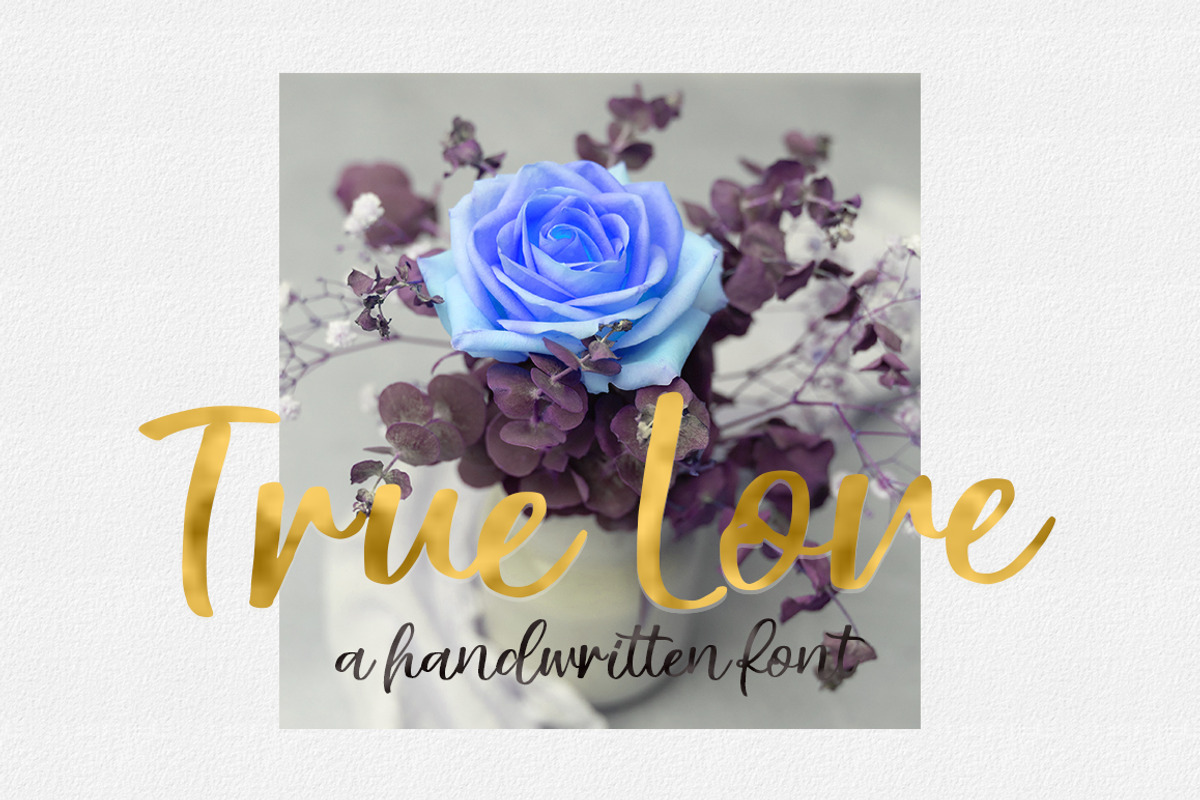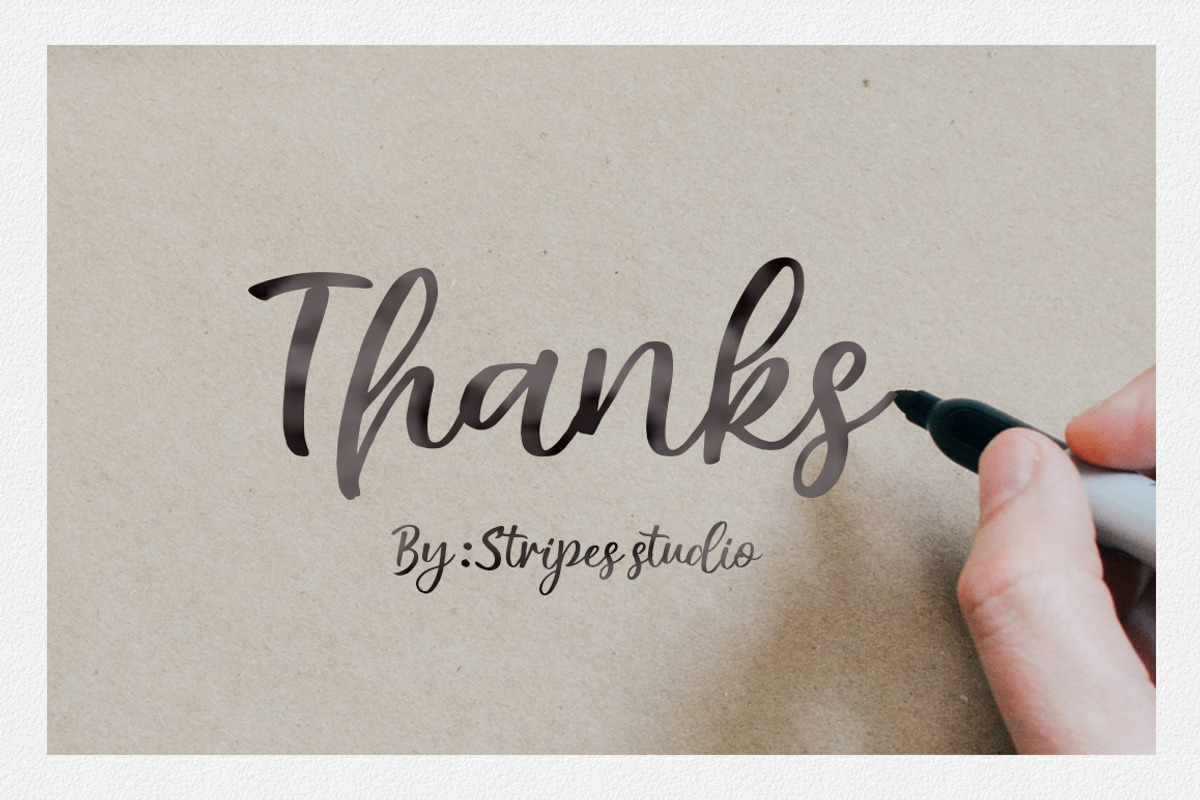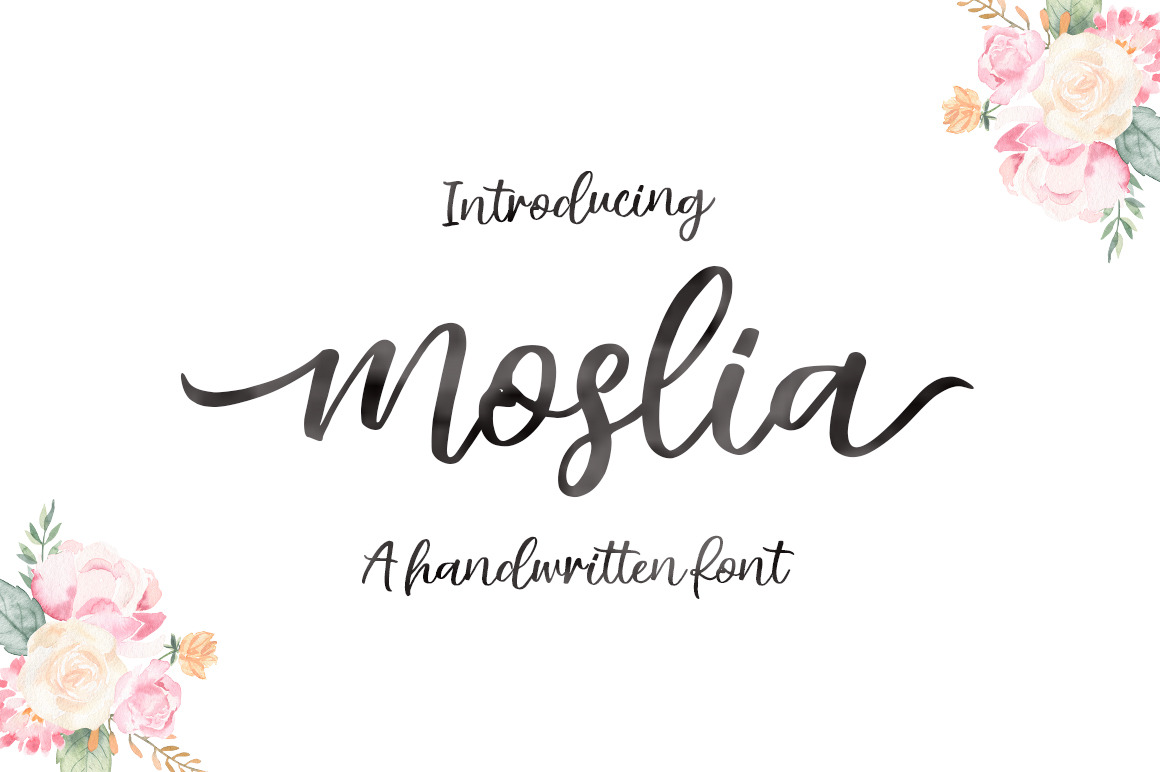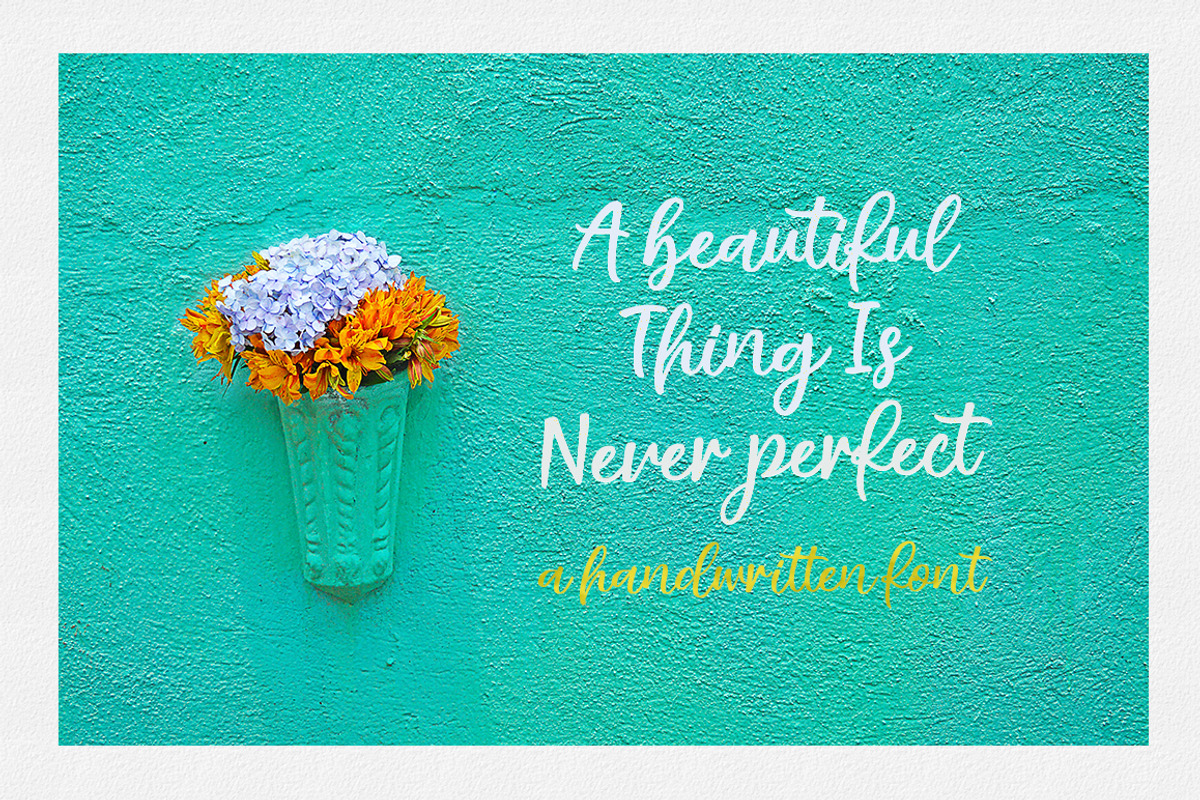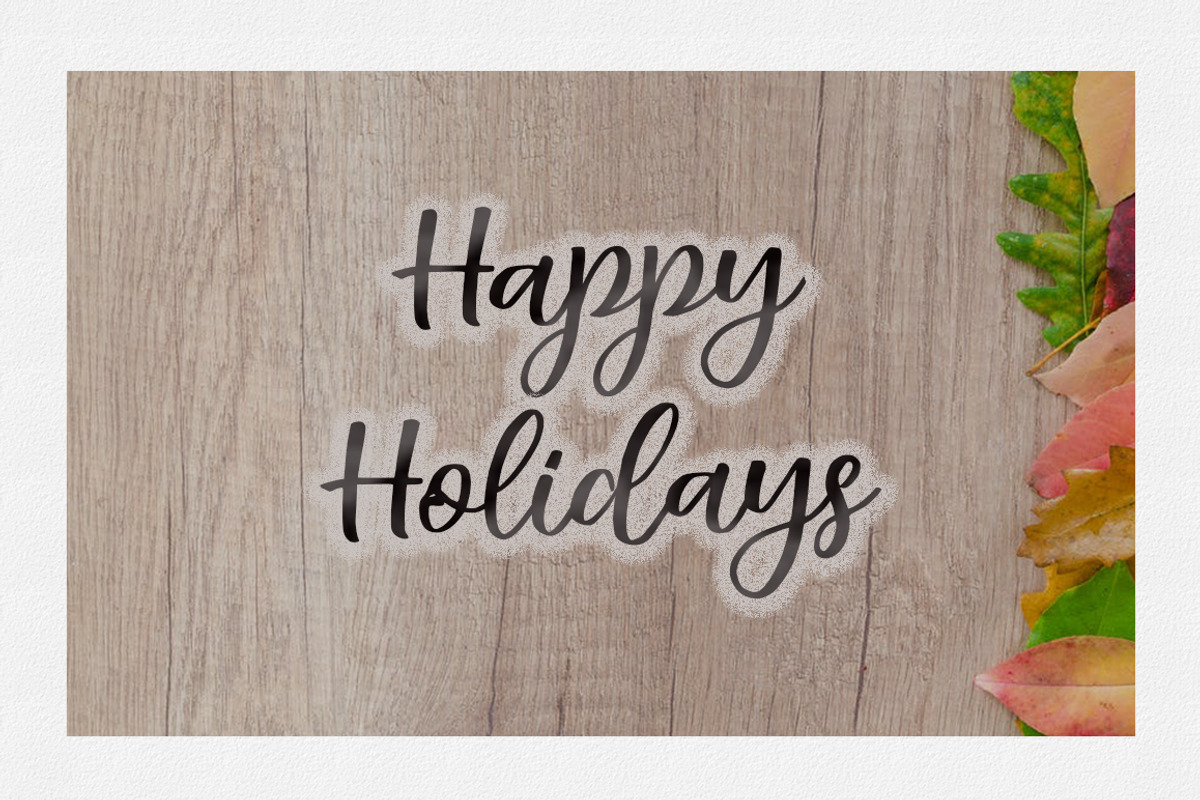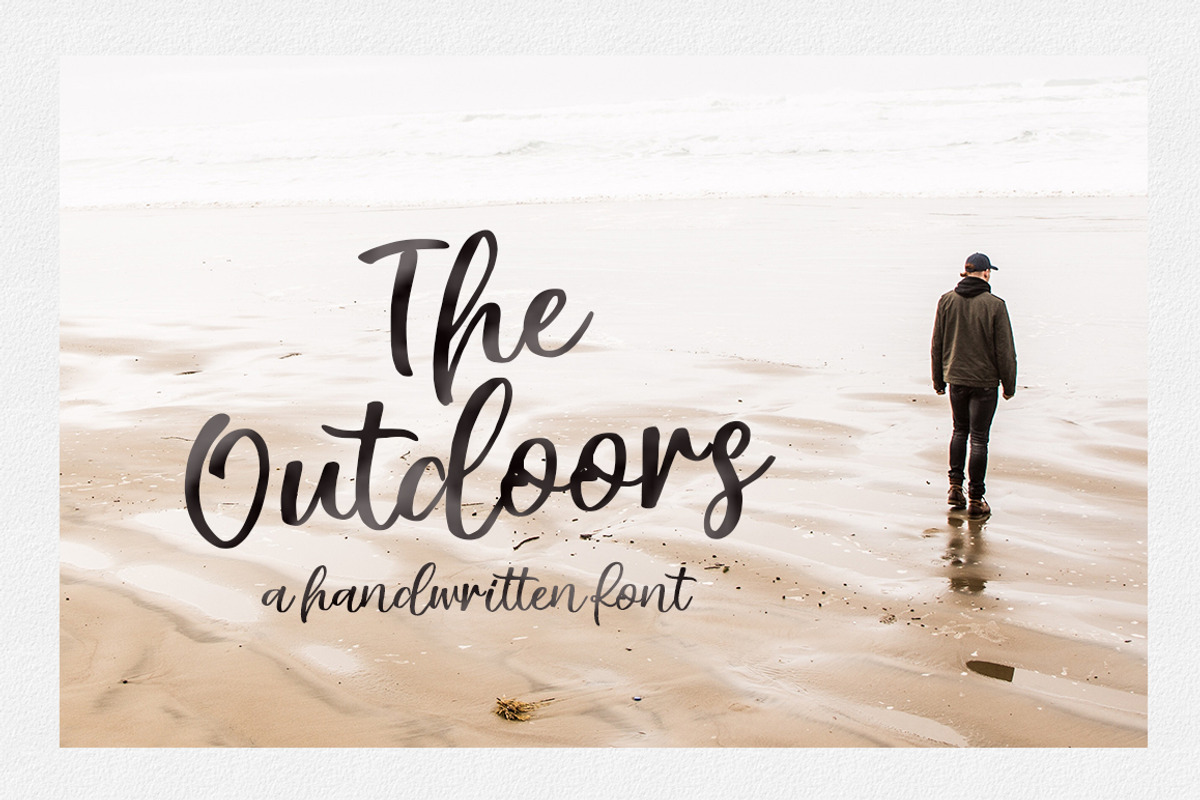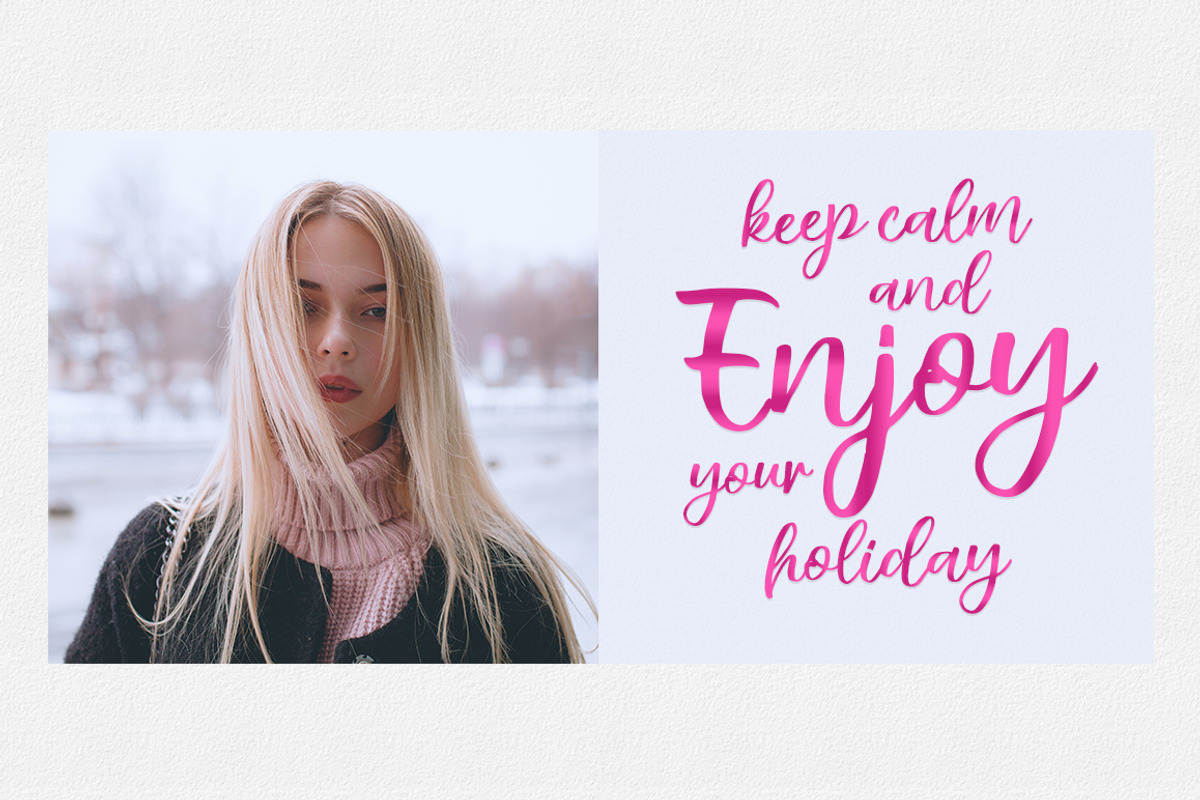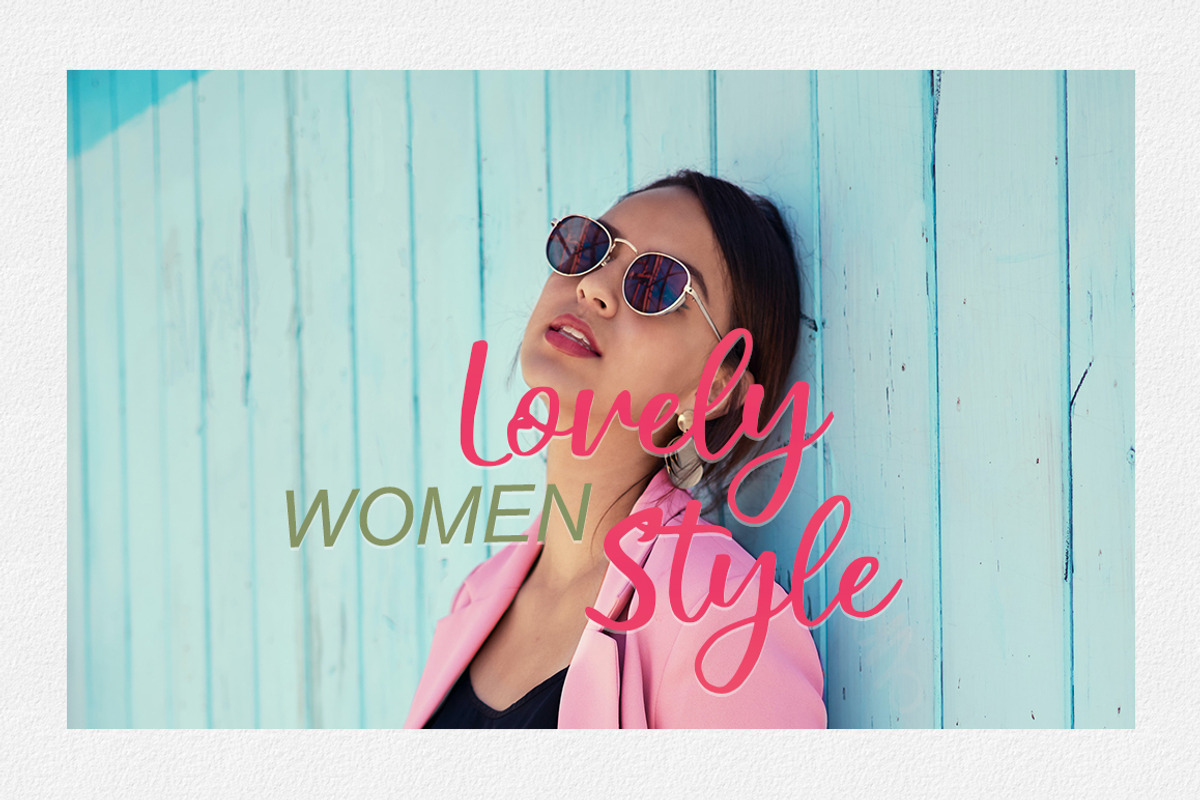
Moslia Handwritten Font
Moslia is a super casual hand brushed script with detailed brush stroke texture, and a quirky, Can be used for various purposes. such as the title, signature, letterhead, signage, labels, newsletters, posters, logos, correspondence, wedding invitations, badges, etc.